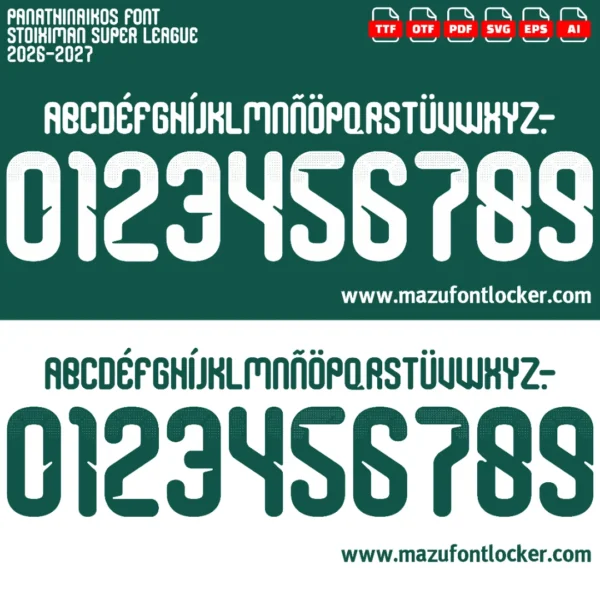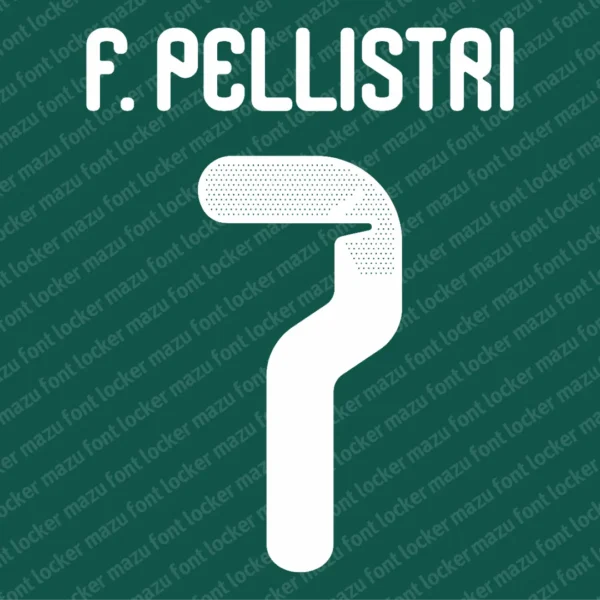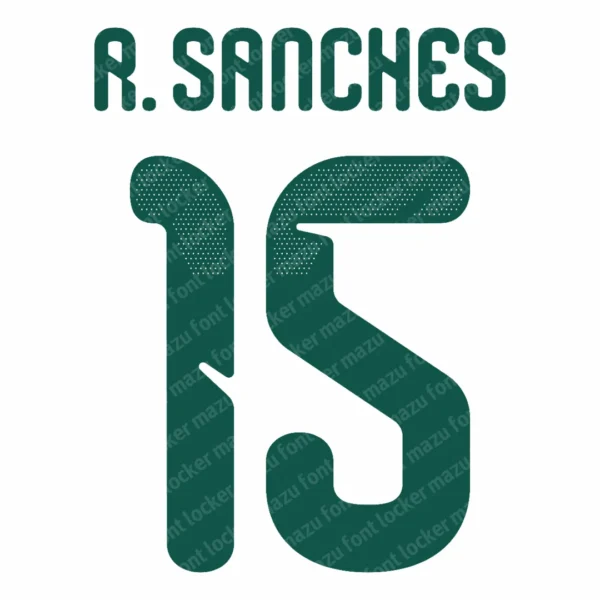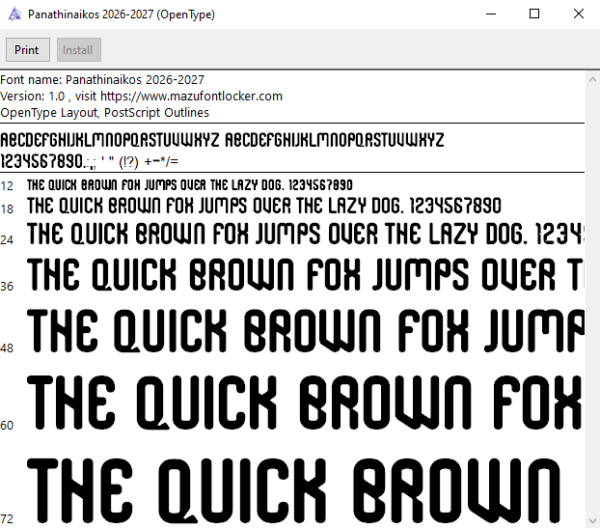
Panathinaikos 2026-2027 Font Vector – Epic Greens Shamrock Masterpiece
This font captures the commanding, sharp, and intense lettering that perfectly embodies Panathinaikos’ proud Athenian heritage, never-say-die mentality, rich Greek football legacy, and raw attacking power — delivering unmatched authenticity, premium quality, explosive energy, and elite European football dominance for professional jersey mockups, dynamic football graphics, premium sports branding, passionate fan creations, and high-end design projects.
Panathinaikos 2026-2027 Font Vector – Legendary Green Typeface
The Panathinaikos 2026-2027 Font Vector is a premium typeface that accurately recreates the official match lettering worn by Panathinaikos during the 2026-2027 season. This high-quality vector font kit captures the bold, elegant, and instantly recognizable typography that perfectly complements the club’s iconic green and white identity.
This font stands out thanks to its precise vector construction and authentic club styling. Every letter and numeral has been meticulously recreated to match the official shirt lettering used throughout the 2026-2027 Super League and European campaign. Whether you’re producing professional kit templates or creating eye-catching football content, the Panathinaikos 2026-2027 Font Vector delivers a genuine match-ready appearance.
The lettering featured in the Panathinaikos 2026-2027 Font Vector combines clean geometric lines with powerful modern proportions. The result is a premium and highly readable typeface that reflects Panathinaikos’ fighting spirit, rich European tradition, and never-give-up mentality.
- Complete uppercase A–Z alphabet and numbers 0–9 in authentic Panathinaikos 2026-2027 style
- Includes authentic league badge glyph placement beneath player numbers
The Panathinaikos 2026-2027 Font Vector is an independently designed typeface package inspired by the official shirt lettering worn during the 2026-2027 season. It has been carefully recreated for football enthusiasts, graphic designers, collectors, and creators producing custom jersey concepts, football artwork, and fan-made projects.